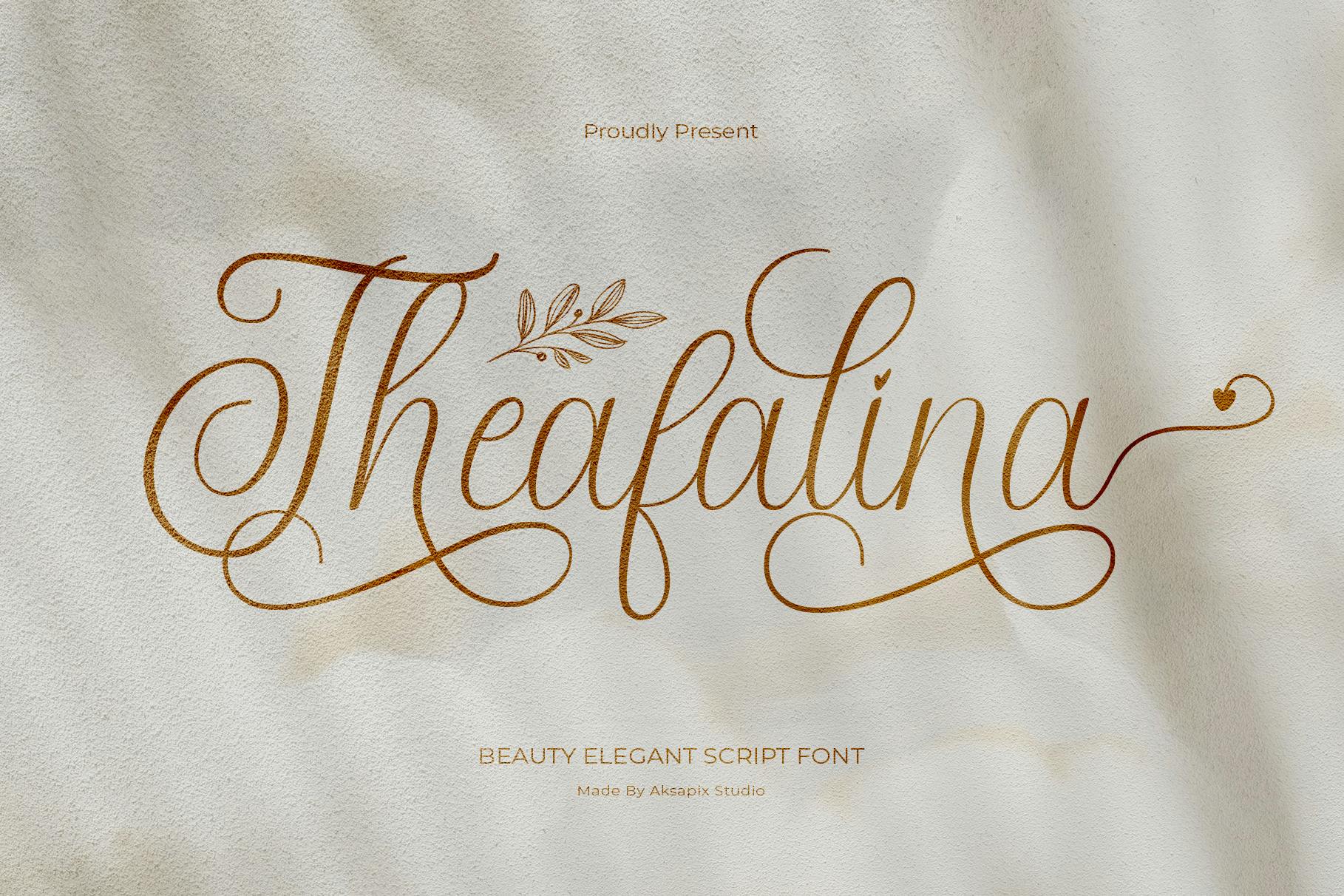
Theafalina - Beauty Elegant Script Font
The Theafalina - Beauty Elegant Script Font is perfect for luxury beauty brands, elegant wedding invitations, sophisticated cosmetics packaging, high-end fashion labels, graceful branding projects, refined social media graphics, upscale spa communications, feminine lifestyle blogs, premium greeting cards, and elegant personal stationery.
What makes the Theafalina - Beauty Elegant Script Font so exciting is its exquisite combination of feminine grace with sophisticated calligraphic refinement that creates an atmosphere of pure elegance and timeless beauty. This stunning typeface features flowing letterforms, delicate connecting strokes, and refined character proportions that perfectly capture the essence of sophisticated femininity and luxurious aesthetic appeal. The font's elegant personality and graceful sophistication make it an exceptional choice for beauty brands seeking to communicate refinement, luxury, and authentic feminine elegance with captivating visual allure.
The Theafalina - Beauty Elegant Script Font family includes stylistic alternates and elegant flourishes, featuring decorative swashes, connecting ligatures, and ornamental elements. Each variation maintains the signature elegant beauty while offering different levels of decorative sophistication and feminine charm, giving designers extensive creative possibilities for crafting refined expressions and sophisticated brand personalities.
This exceptional Theafalina - Beauty Elegant Script Font Free Download represents the ideal elegant typography choice for designers who want to infuse their projects with sophisticated beauty and refined feminine appeal. Whether you're developing luxury beauty brands, creating elegant wedding materials, or designing sophisticated lifestyle content, this versatile elegant script delivers enchanting results that resonate with audiences seeking authentic refinement and timeless beauty.
The graceful calligraphic characteristics of Theafalina - Beauty Elegant Script Font showcase masterful elegant script design, with each letter carefully crafted to flow seamlessly while maintaining sophisticated proportions and refined aesthetic appeal. The font's comprehensive character set includes uppercase and lowercase letters, numerals, elegant punctuation, and decorative symbols, ensuring complete functionality for diverse elegant projects and international luxury applications.
Perfectly designed for both digital and print elegant applications, this beautiful font maintains its sophisticated script character and graceful elegance across various sizes and formats. From large-scale luxury signage to delicate beauty packaging details, Theafalina - Beauty Elegant Script Font adapts beautifully to any refined design challenge while preserving its distinctive elegant personality and sophisticated feminine charm.